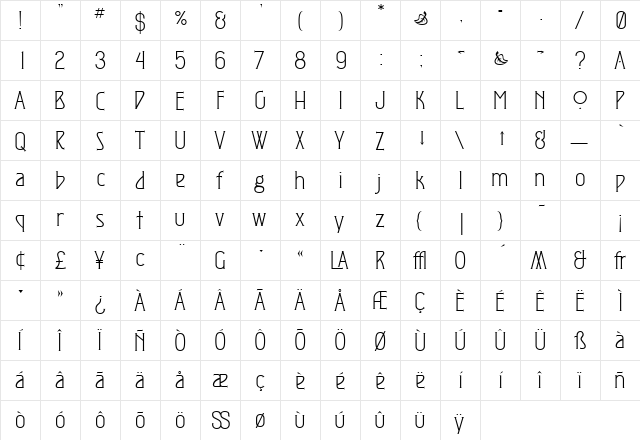
JM Exposition Plain One Regular
Design Context for JM Exposition Plain One Typeface
JM Exposition Plain One is a composed and adaptable typeface that performs quietly and consistently across a wide range of design contexts.